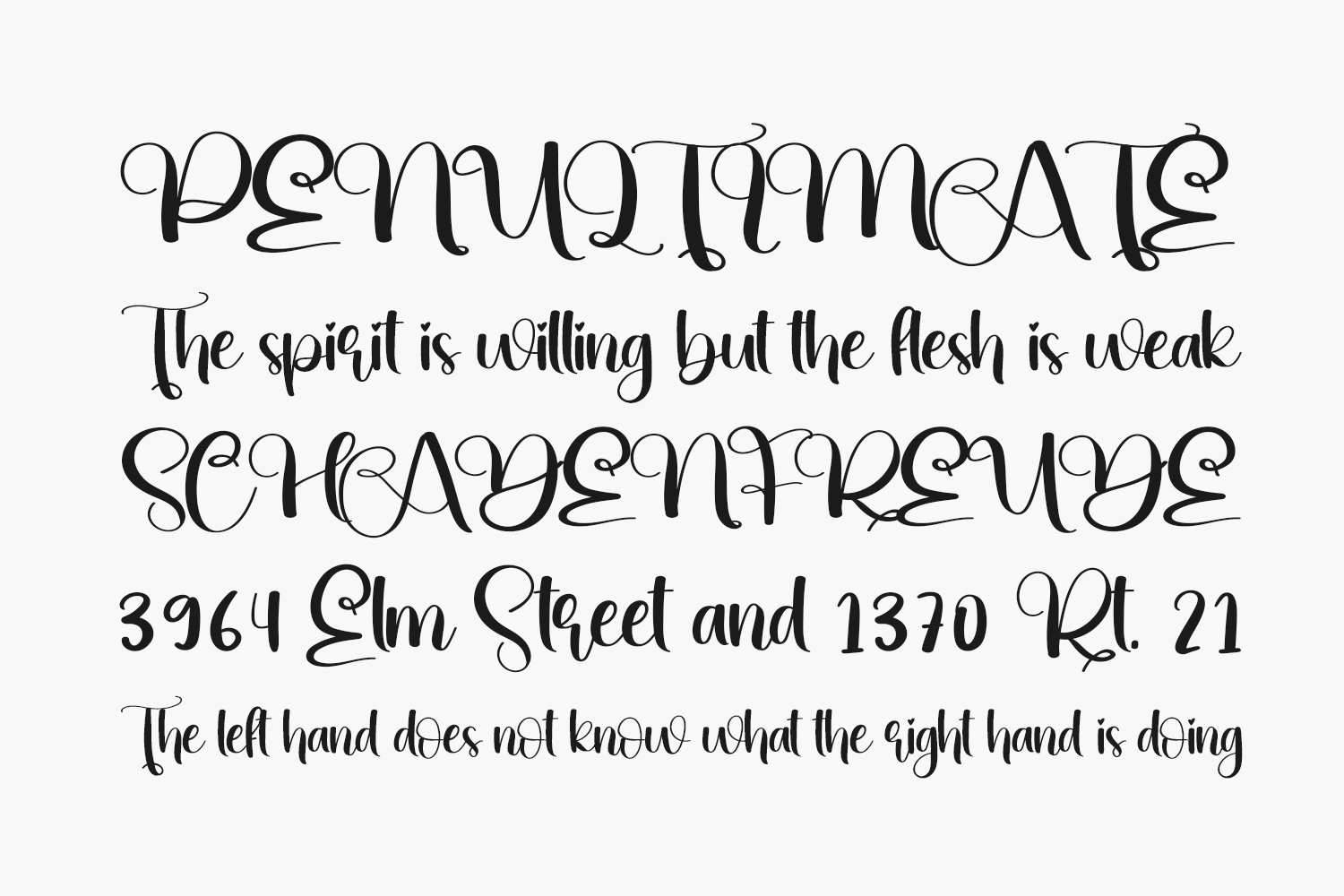
Discover the stylish charm of Bisney Free Font, a trendy and immaculate handwritten script font. Combining classic calligraphic influences with a contemporary touch, this font exudes coolness and freshness. Fall in love with Bisney as it elevates your projects to new heights of sophistication. Bisney Free Font was designed by Scratchones and is free for personal use only. Please purchase the full version for commercial use.